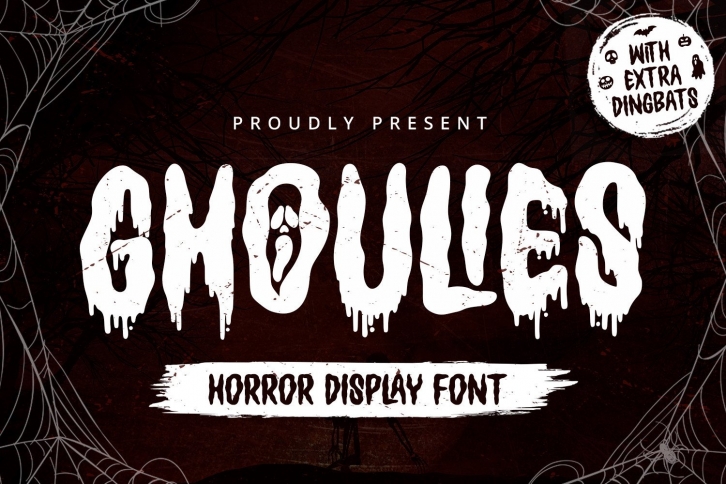
Ghoulies – Horror Display Font
Ghoulies is a stunning horror display font with natural and scary feels. It will be perfectly used for Branding, Logo Design, Lettering, Logotype, Clothing, Poster, magazine, packaging, posters, shopping bags, t-shirts, book covers, photography, special events and other design project.
– Uppercase & Lowercase
– Numerals
– Punctuations (OpenType Standard)
– Accents (Multilingual Characters)
– Ligatures and Alternative Style Stylistic Set